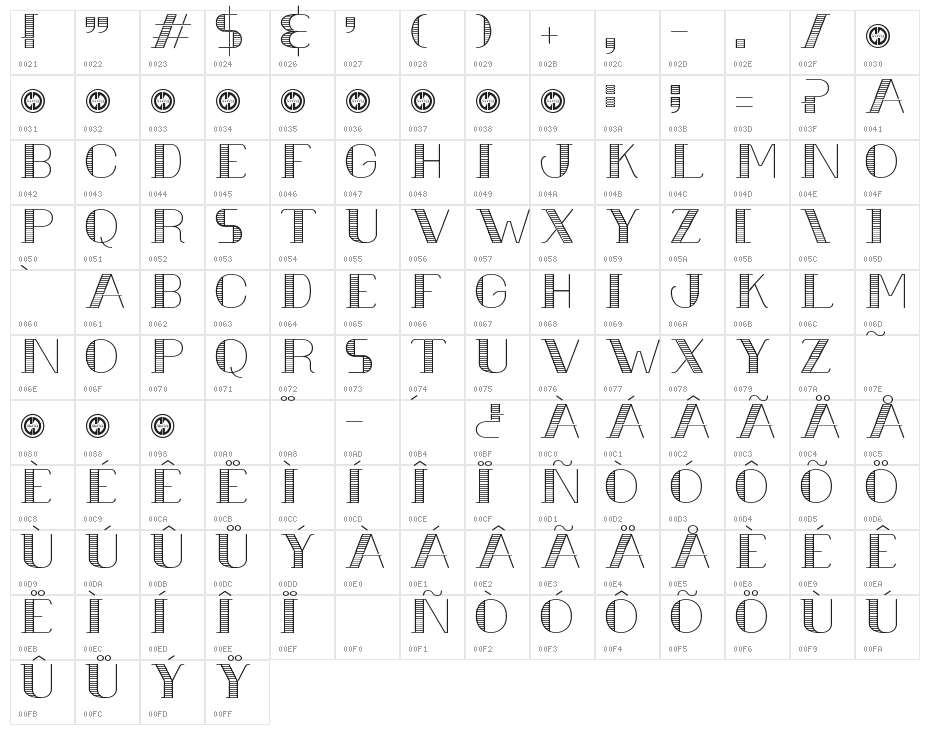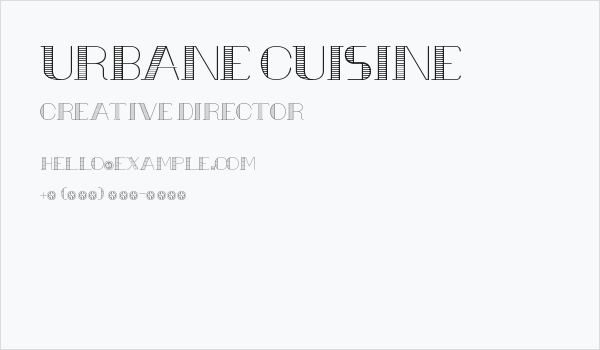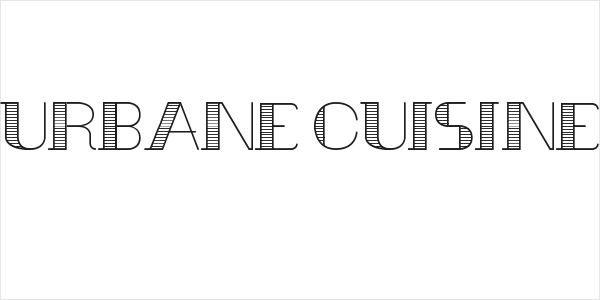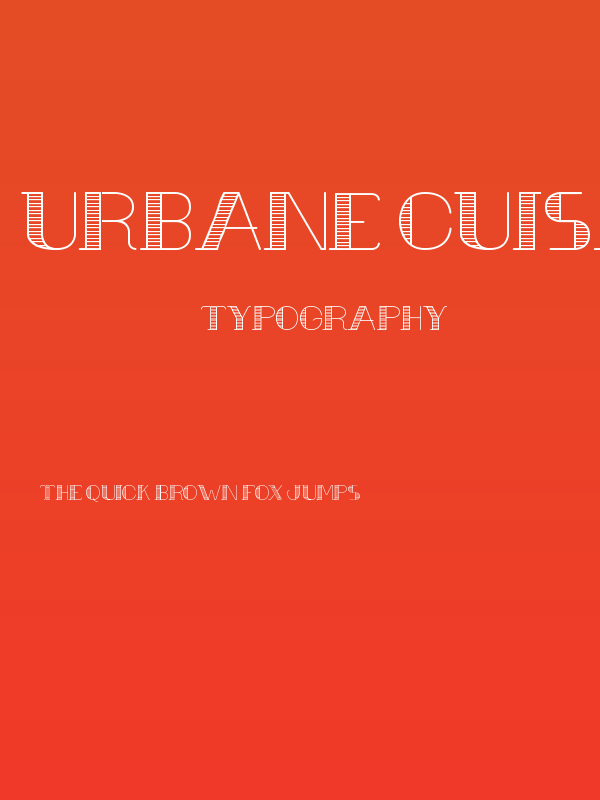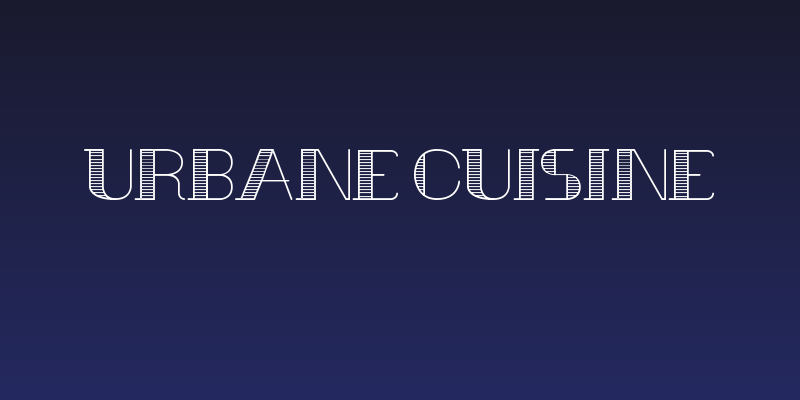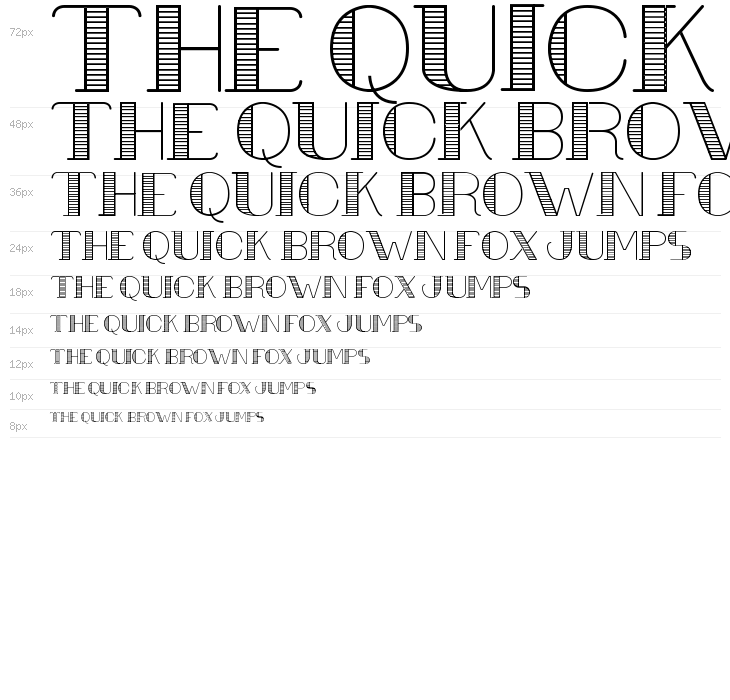
Urbane Cuisine Font
Urbane Cuisine Description
This font features a unique, decorative style with a modern twist. The characters are designed with a combination of solid and striped lines, creating a visually striking effect. The uppercase letters are bold and structured, while the lowercase letters maintain a consistent design. The numerals and special characters follow the same aesthetic, ensuring a cohesive look across all text. This font's intricate detailing makes it stand out, offering a blend of elegance and contemporary flair.
| Use Case | Logos, Posters, Branding |
| Proposed Projects | Ideal for branding, logos, posters, and any design project that requires a bold and artistic touch. |